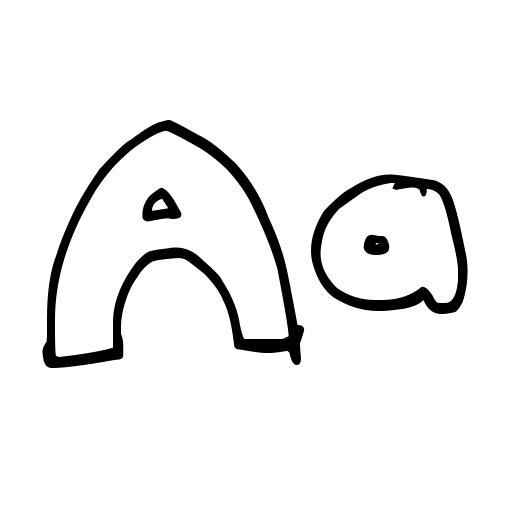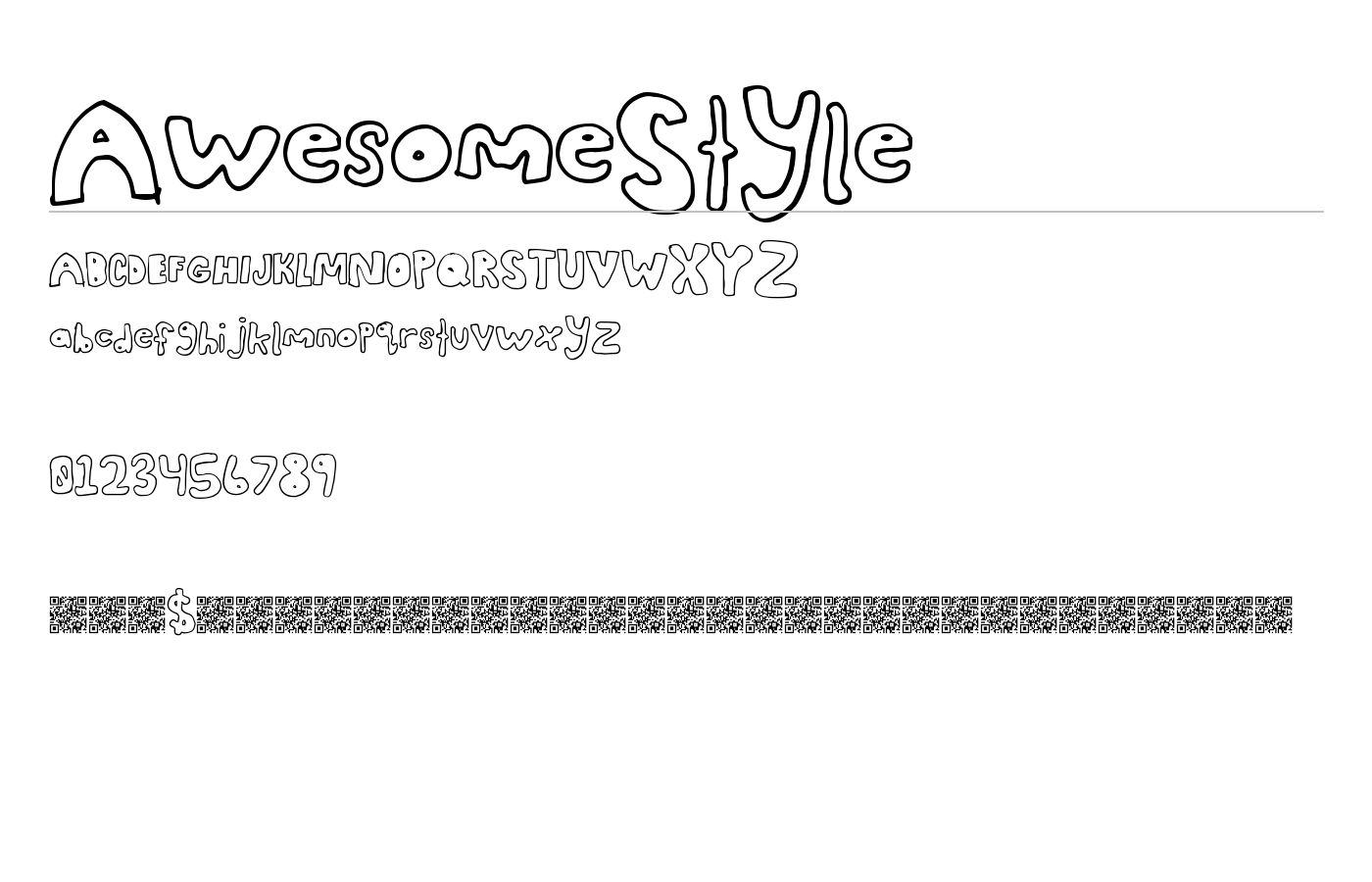
AwesomeStyle Font is a playful and casual handwritten typeface with a light, airy feel created by its uneven, bubbly letterforms. Its fun and informal style works great for children's projects, creative branding, and lighthearted designs where a friendly and approachable look is desired. This font shines in headlines and logos that need a touch of whimsy and character.
AwesomeStyle Font
About AwesomeStyle Font